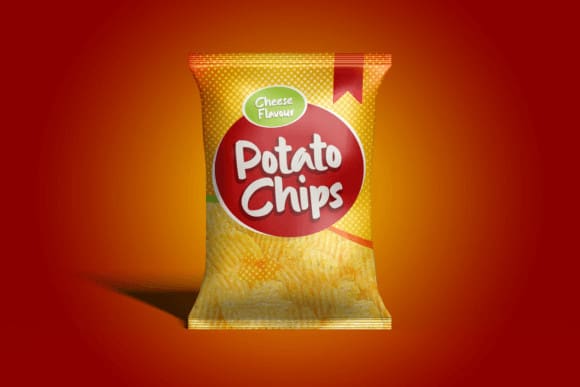
Reality Goals Font
Reality Goals Font is a beautiful and stylish handwritten display font that exudes creativity and inspiration. The font features unique and eye-catching letterforms that are carefully crafted to convey a sense of playfulness and sophistication. This font is perfect for a variety of projects, including branding, marketing materials, social media graphics, quotes, invitations, and more.